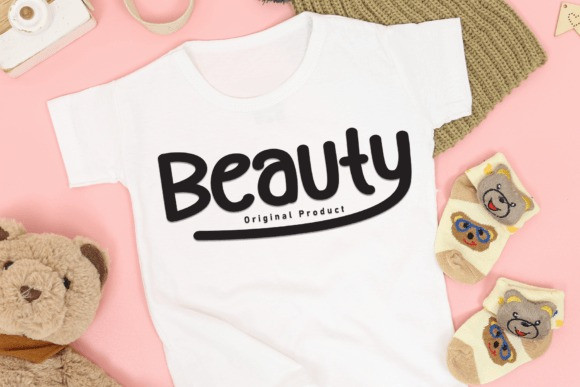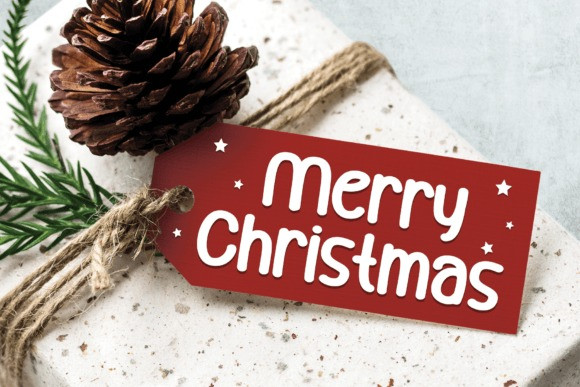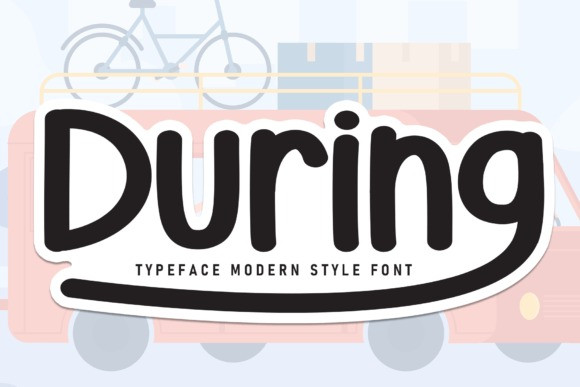
During Font
During Font is a sweet and friendly handwritten display font. Cute and fun, this font is ideal for writing wedding invitations, cards, or any other design that might need a fun touch!